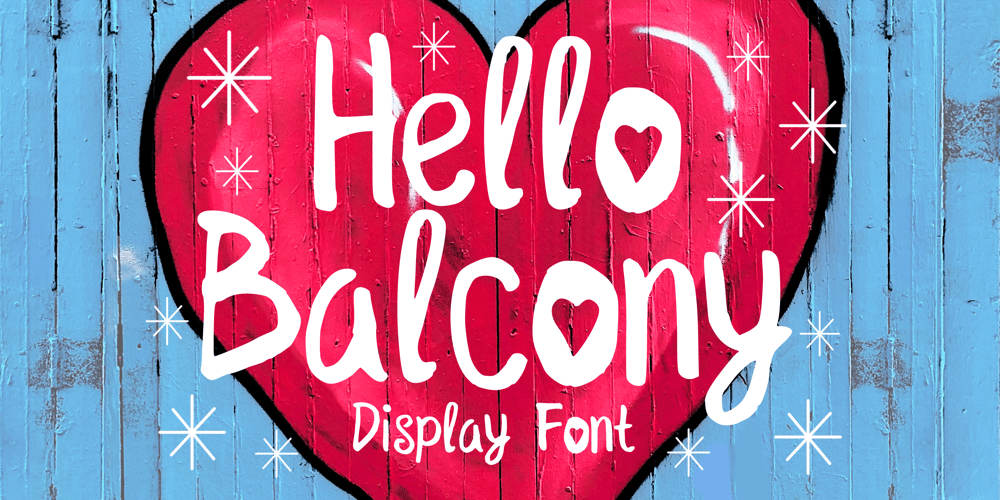
Hello Balcony Font Family was designed by Gabriel Valentinus and published by Mvmet. Hello Balcony contains 1 styles and family package options. Hello Balcony is a lovely handmade paint font. You can use it for anything ranging from t-shirts, book designs, packaging and greeting cards to stickers and posters, or anything that needs a casual touch. If you want to use it for Christmas or Valentine or other lovely themed designs, it will be your perfect font to pick. Fall in love with its incredibly versatile style, and use it to create lovely designs!